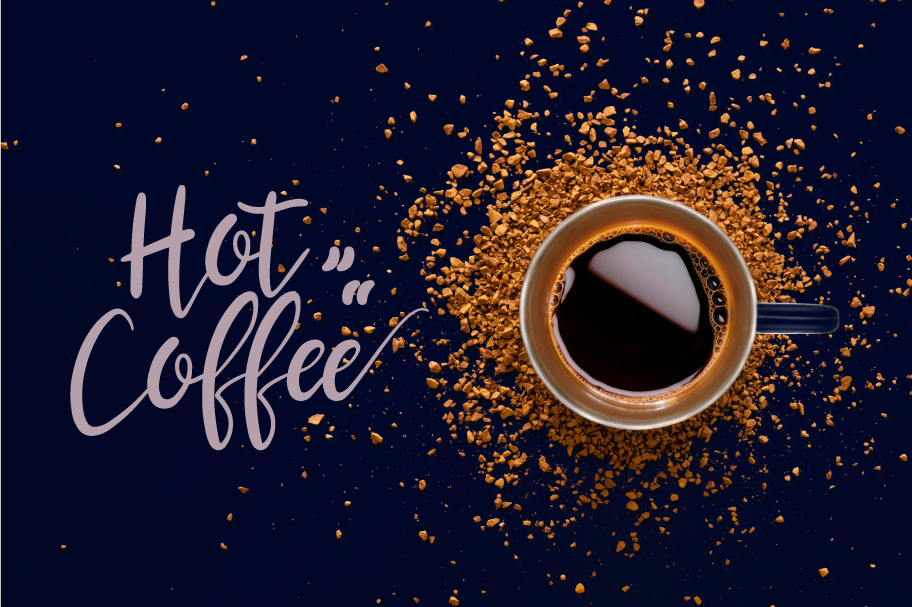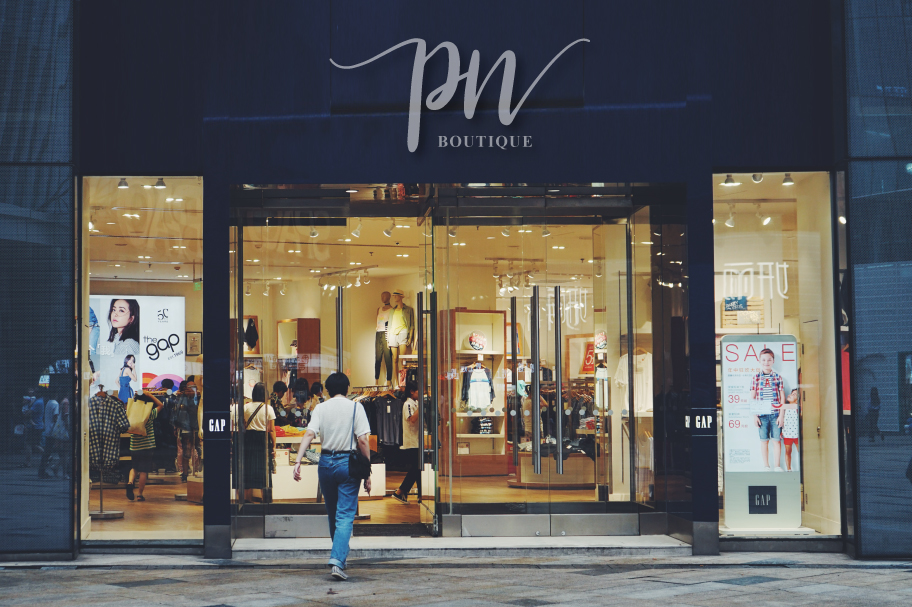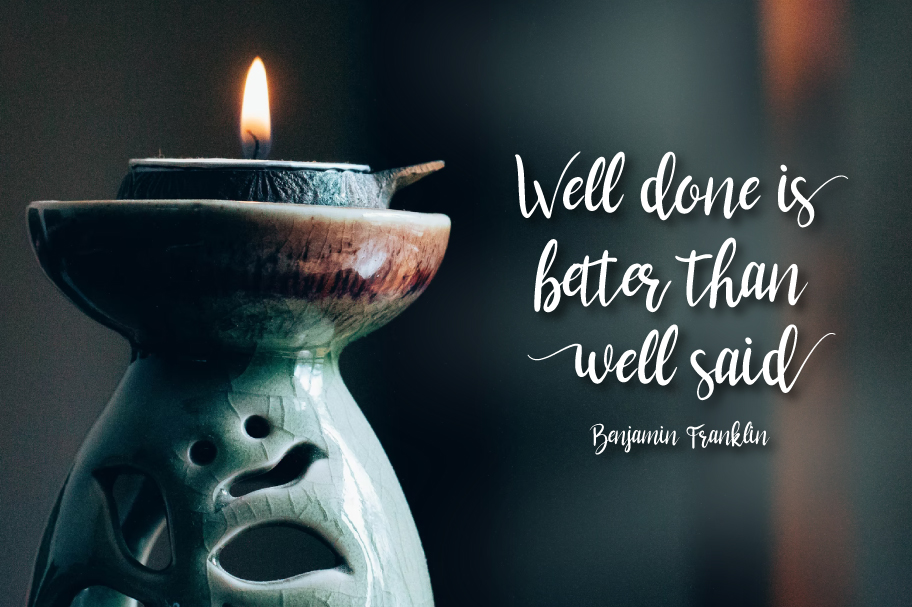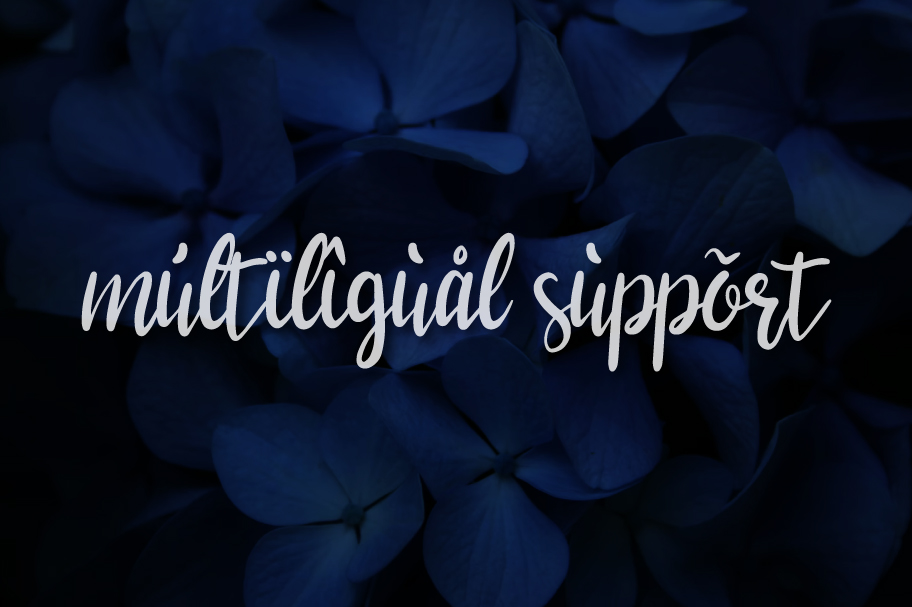
Brotup Font
Brotup Script Font
This is a lovely and timeless handwritten font. It is the best choice for creating eye-catching logos, branding, and quotes. Every letter has a unique and beautiful touch, which will make your design come alive! This font is PUA encoded, which means you can access all of the glyphs and swashes with ease!